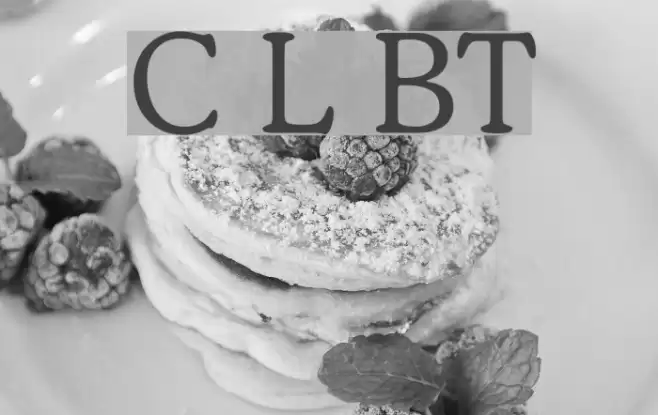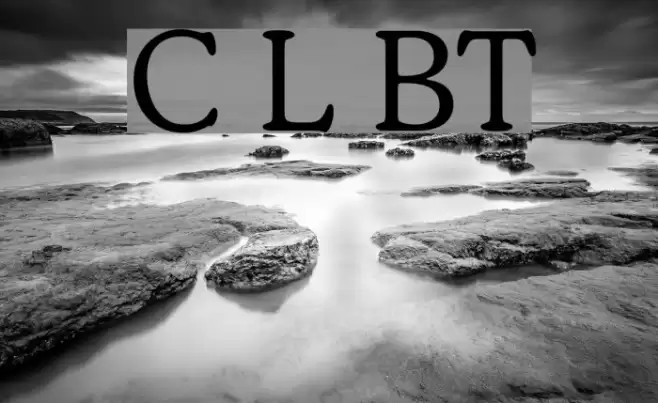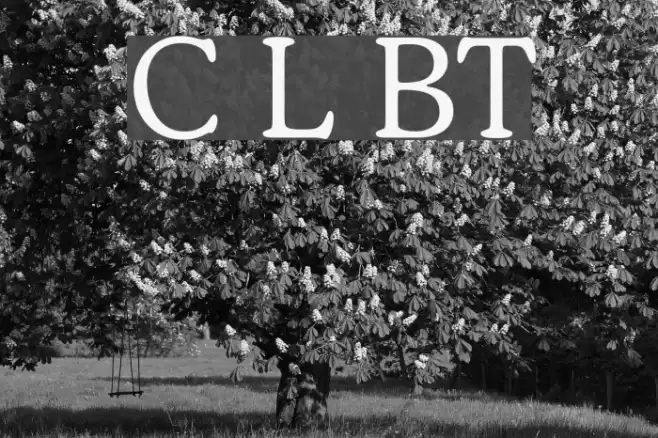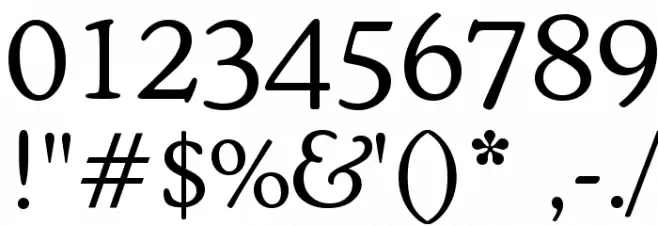
Cooper Light BT Font
Cooper Light BT Description
This font features a classic serif style with rounded edges and a smooth, flowing appearance. The letters have a playful yet elegant look, characterized by their soft curves and slightly exaggerated serifs. The overall design is friendly and approachable, making it suitable for a variety of applications. The uppercase letters are bold and prominent, while the lowercase letters maintain a consistent and harmonious flow. Numbers and special characters are designed with the same attention to detail, ensuring readability and aesthetic appeal.
A classic serif font with rounded edges and a playful, elegant style from Uncategorized fonts.
- Proposed Projects: Ideal for branding, packaging, invitations, and editorial design projects.
- Overall Style: Classic
- Use Case: Logos, Headlines, Invitations